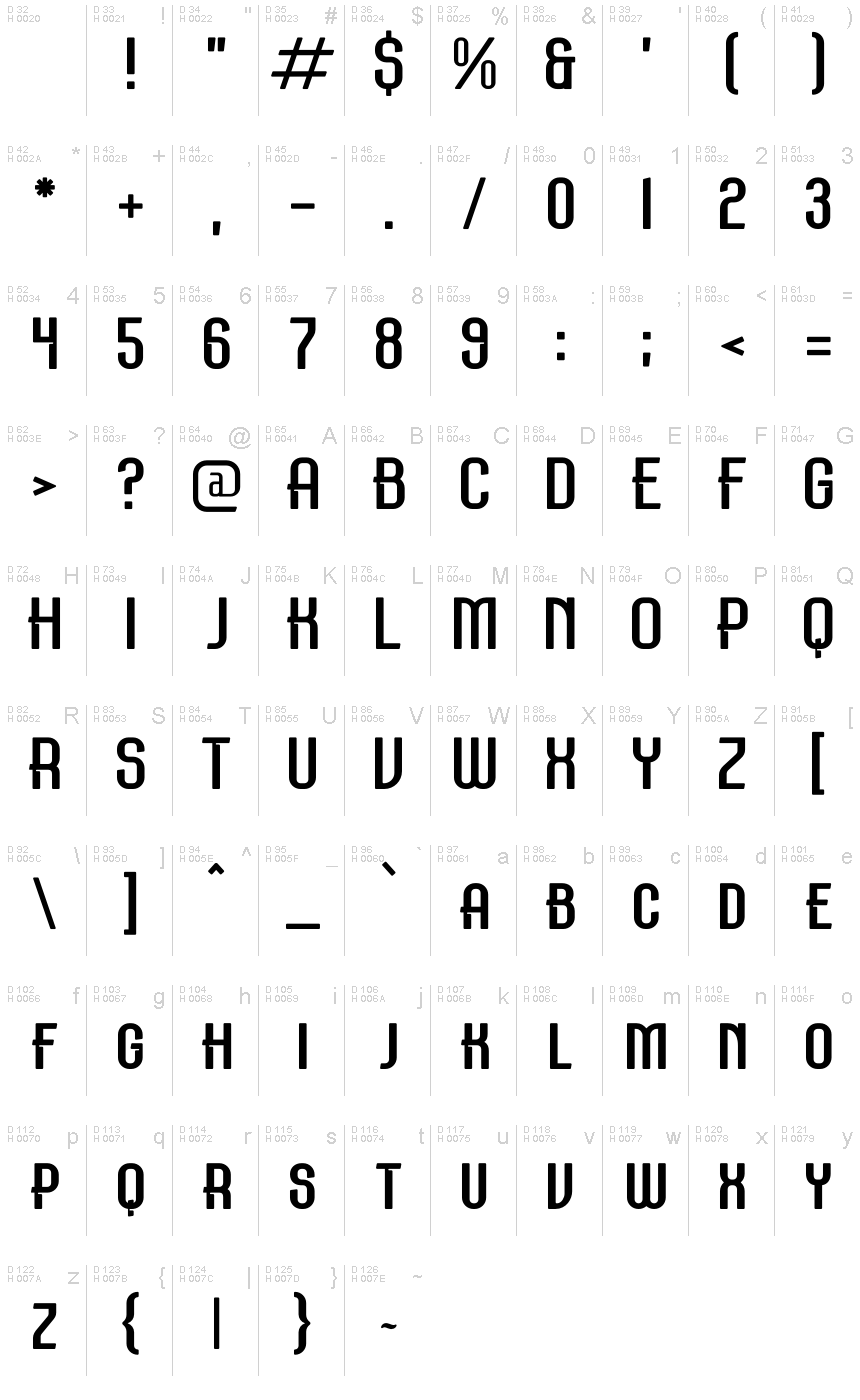
Meholrax
Meholrax, crafted by Storytype Studio, stands out with its sleek and condensed profile that demands attention. Exuding a modern and sophisticated charm, this font marries elegance with efficiency, making every letterform count in its slender yet impactful presentation.
Meholrax is versatile in its aesthetic appeal; the font's streamlined design lends itself to high-end branding and editorial work where space is at a premium but style is paramount. Its assertive presence also makes it an excellent choice for attention-grabbing headlines or minimalist advertising campaigns that require a touch of finesse without overwhelming the message. Whether on a glossy magazine cover or a chic logo, Meholrax delivers contemporary flair with every character.